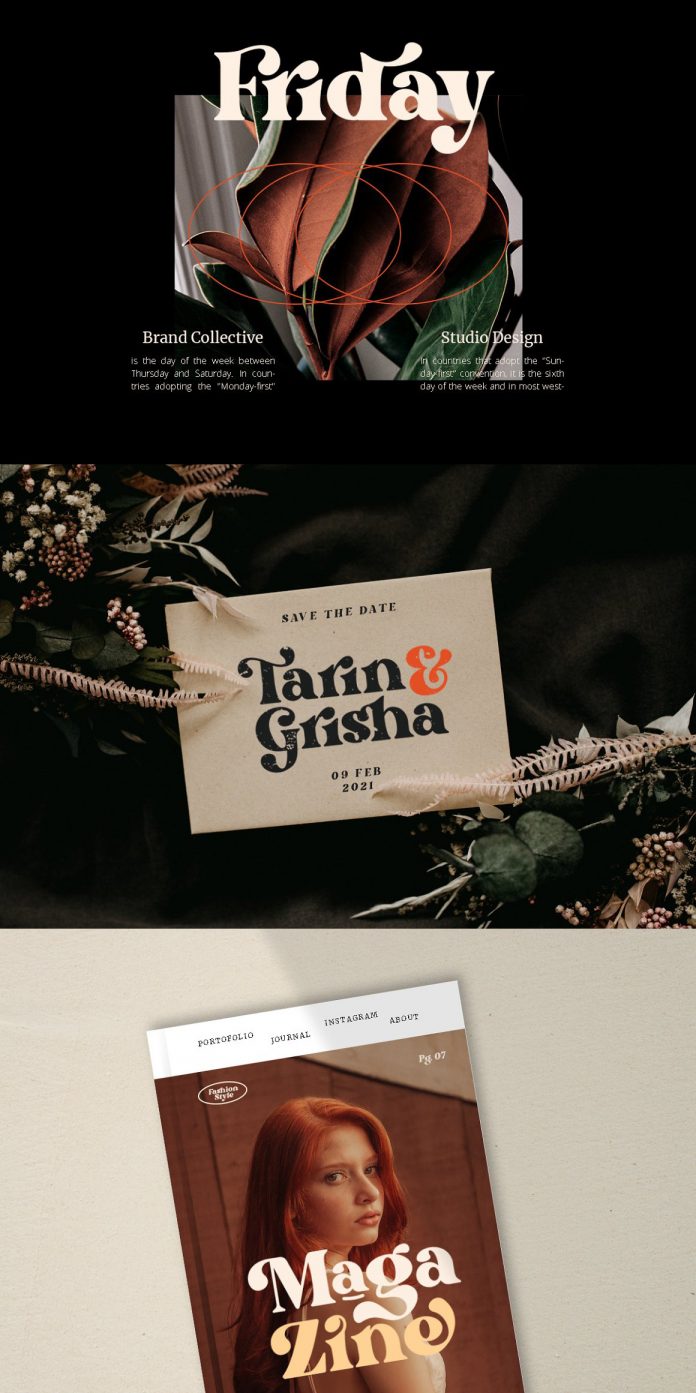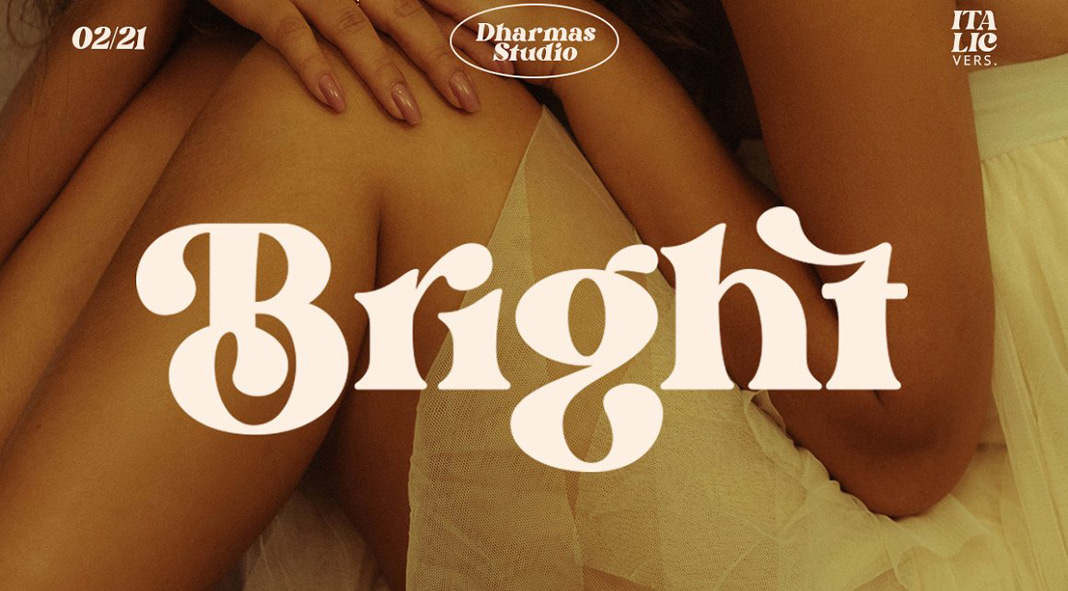
Bright typeface, a vintage-inspired retro font designed and published by Dharmas Studio.
Inspired by the style of the 1960s and 1970s, the Bright typeface combines vintage attributes with modern styles. This font comes with more than 50 alternates and ligatures. Using the Bright typeface, you can create titles, logotypes, and other design projects with a touch of vintage. Just click on one of the following links to learn more about all features.